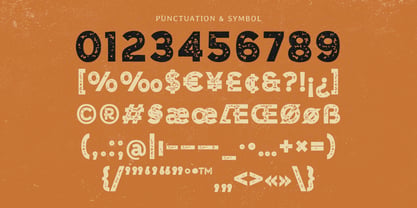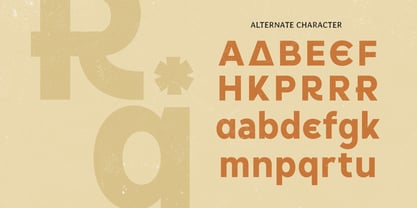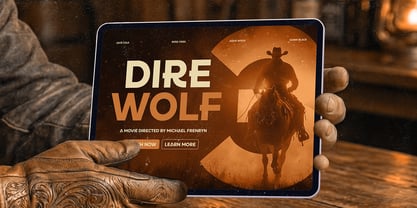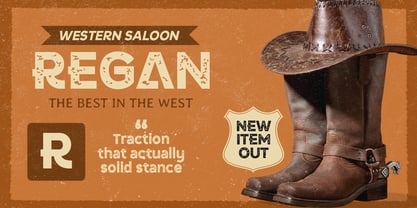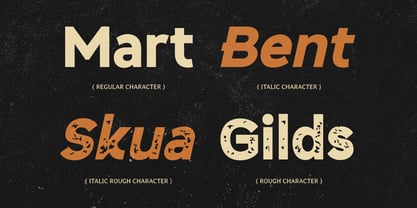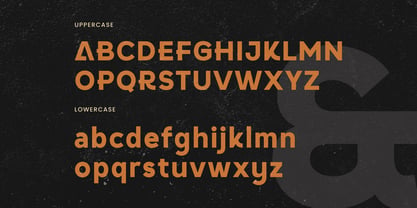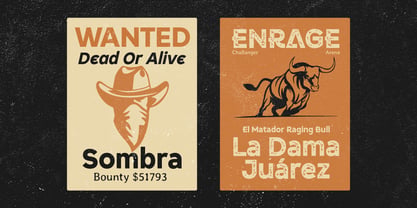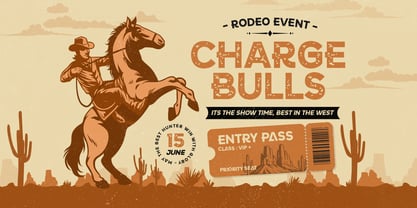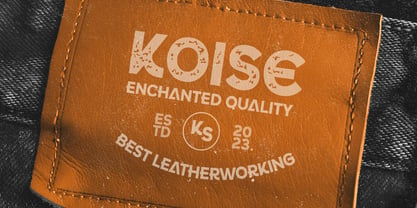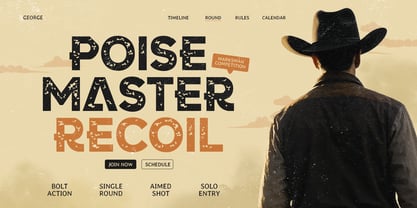
Camfen
The Camfen Font Family was designed by Zamroni Hamzah and published by Sensatype Studio. Camfen contains 4 styles and family package options. More about this family
CAMFEN is a branding vintage bold font designed to deliver strong character with a timeless retro attitude. Featuring thick letterforms and classic styling, this typeface creates a powerful visual tone that feels nostalgic, confident, and instantly eye-catching.
Built for bold branding applications, CAMFEN works perfectly across logos, wordmarks, packaging, labels, posters, signage, café branding, event graphics, website headers, and social media visuals. Its bold structure ensures high readability while adding a vintage personality that makes every design feel authentic and memorable across both digital and print layouts.
Whether you’re building a heritage-inspired brand, creating rustic packaging, designing retro promotional materials, or crafting bold headline visuals, CAMFEN provides a vintage foundation that brings strength, character, and classic appeal to your typography.
Inspiration Behind CAMFEN
CAMFEN is inspired by traditional signage, vintage branding, and retro display typography—where bold shapes and strong presence define identity. The design focuses on nostalgic structure and powerful rhythm to support classic branding and impactful headline design with a timeless feel.
CAMFEN Font Features:
• Vintage bold letterforms with strong retro character
• Perfect with 4 styles: regular, italic, rough, and rough italic
• Perfect for logos, branding, posters, and headline typography
• High readability with thick strokes and clear structure
• Classic style for nostalgic and heritage-inspired designs
• Uppercase, lowercase, numerals, and punctuation included
• OpenType features for polished professional typesetting
Perfect For
• Vintage logos, retro wordmarks, and heritage brand identity
• Packaging, labels, and classic product branding
• Posters, signage, and bold promotional layouts
• Café, restaurant, and lifestyle branding projects
• Social media graphics and nostalgic campaign visuals
Multilingual Support
Bring bold vintage character to your branding with CAMFEN—a strong retro font built for timeless, impactful design. ✨